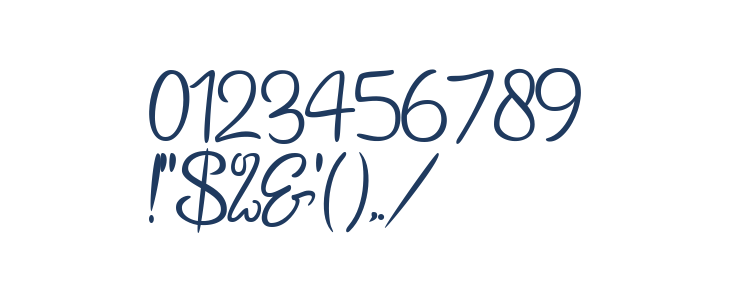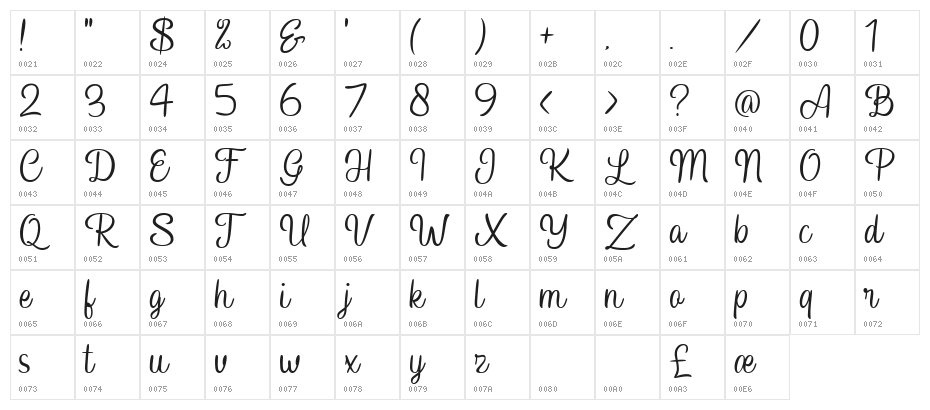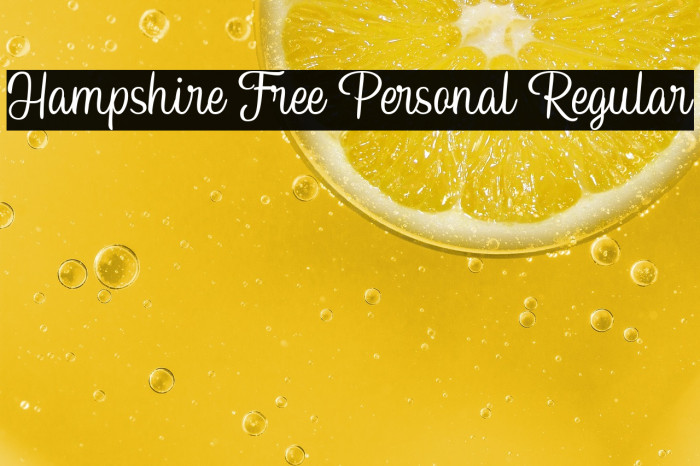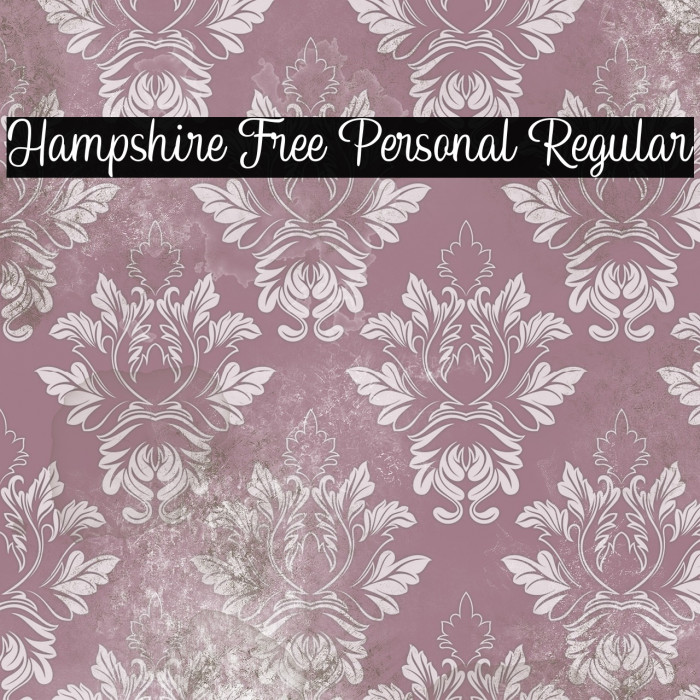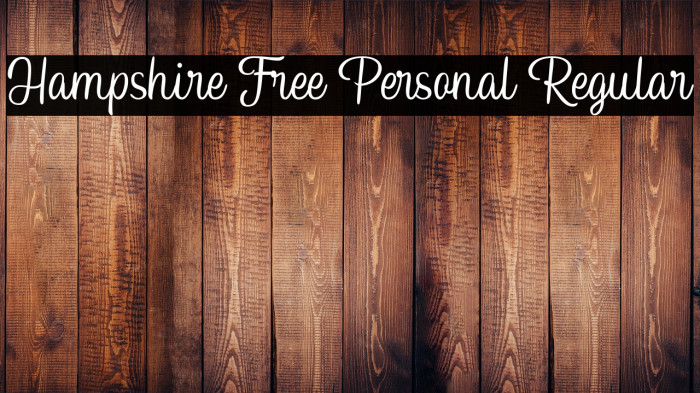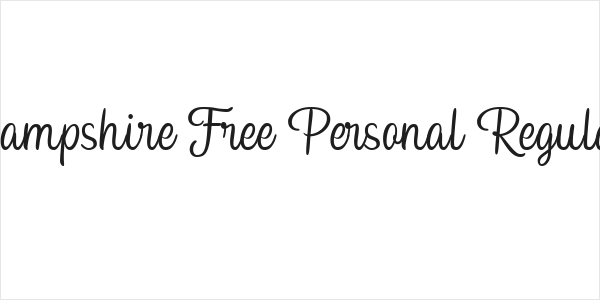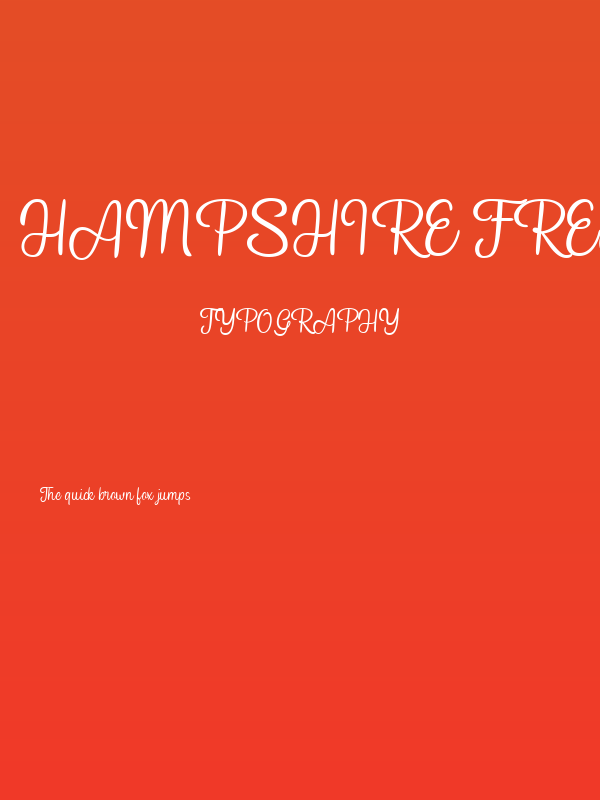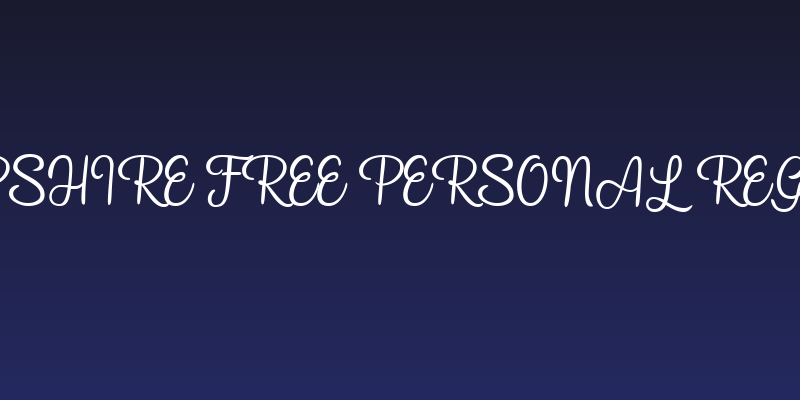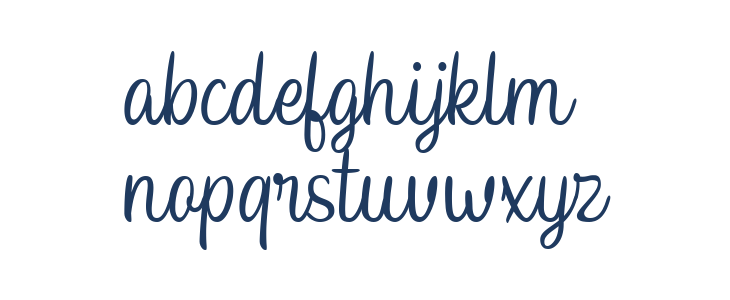
Hampshire Free Personal Regular Font
Hampshire Free Personal Regular Description
This font features a flowing, cursive style with elegant loops and swashes, giving it a handwritten appearance. The uppercase letters are slightly more ornate, with distinctive curls and flourishes, while the lowercase letters maintain a consistent, smooth flow. The numerals are designed to complement the letters, with a similar curvaceous style. Special characters are integrated seamlessly, maintaining the overall aesthetic. The font's design is both playful and sophisticated, making it versatile for various creative applications.